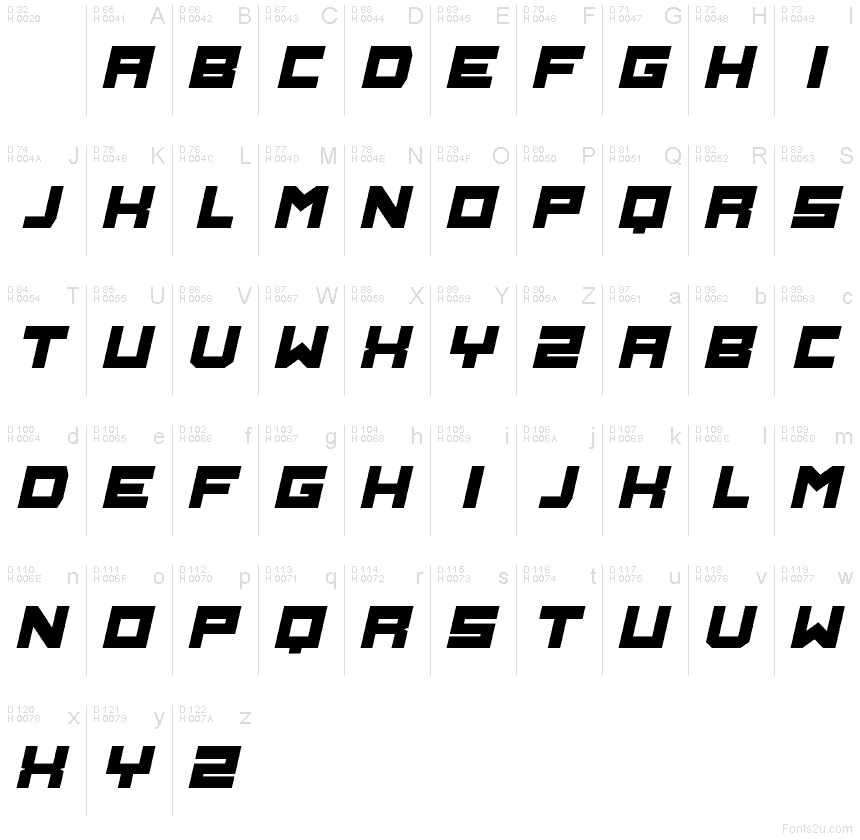
Frula Extravagant Italic
Frula Extravagant Italic font by Vladimir Nikolic is one bold techno display font that smoothly manages to keep a sleek, modern, and futuristic flair. With a minimalistic and expanded style, it gets influenced by geometric shapes for some of its elements present in its letters.
Artists will find this font valuable for branding projects such as posters, signs, packaging designs, headlines, logotypes and advertising materials. It can also be used on digital interfaces like website designs and mobile applications or simply as part of print stationery design.